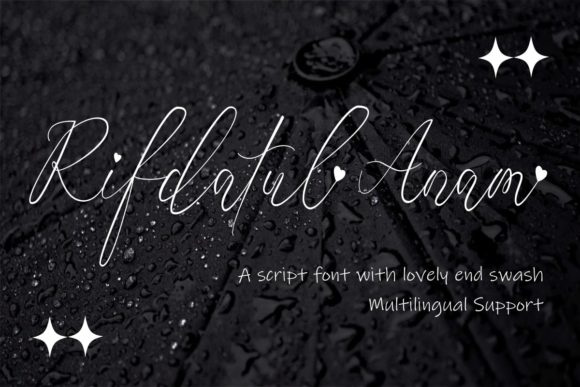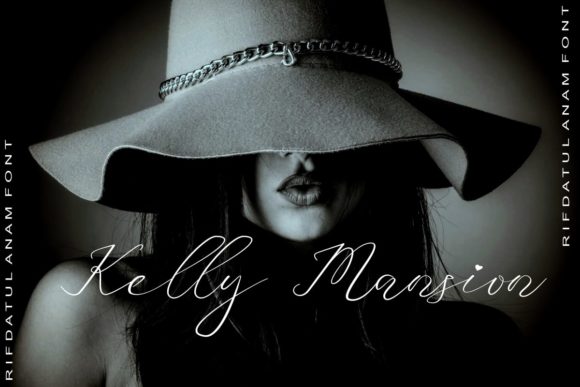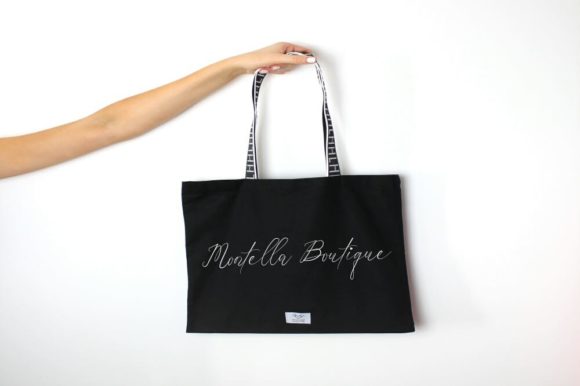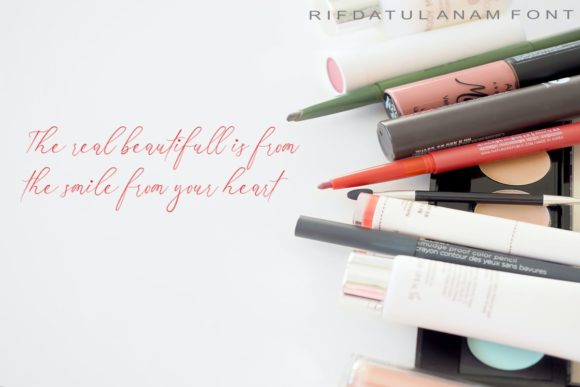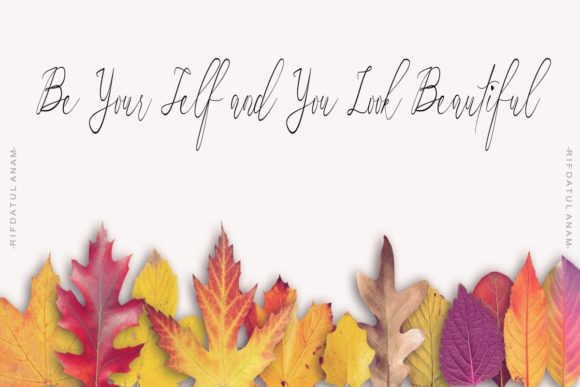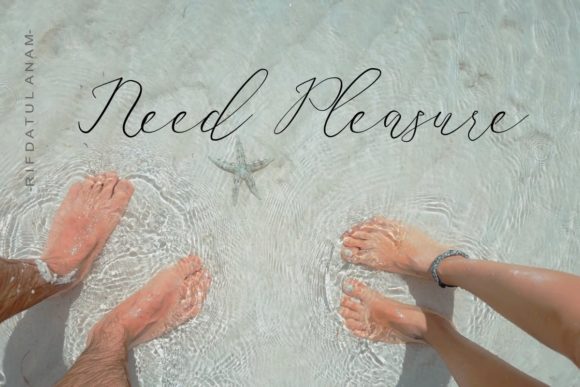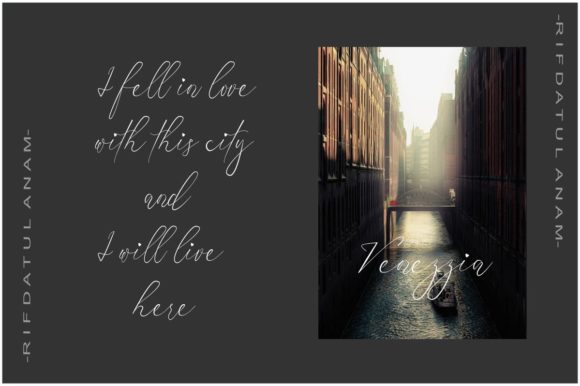
Rifdatul Anam Font
About Rifdatul Anam Font
Rifdatul Anam is a thin lettered script font with a contemporary atmosphere and impeccable form, inspired by timeless classic calligraphy. Fall for its ravishing style and use it to create gorgeous wedding invitations, beautiful stationary art, eye-catching social media posts, and much more!